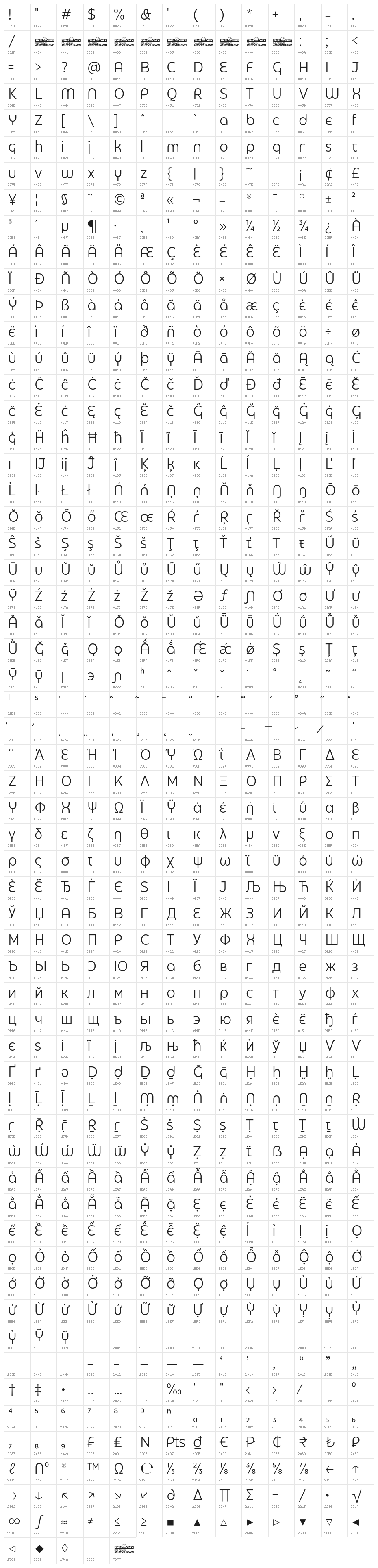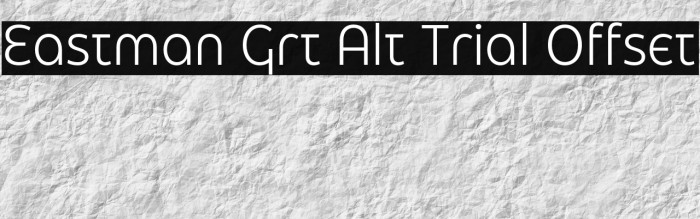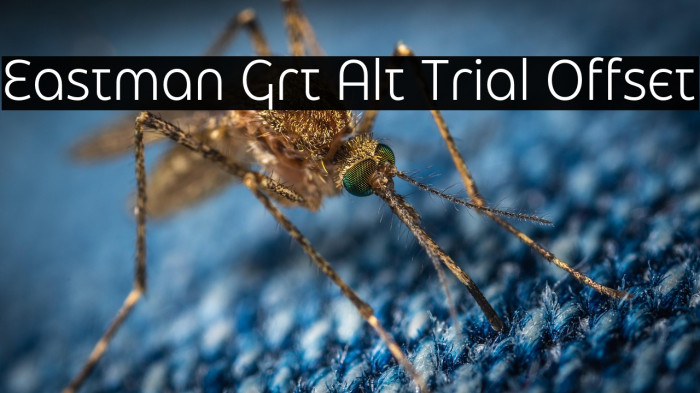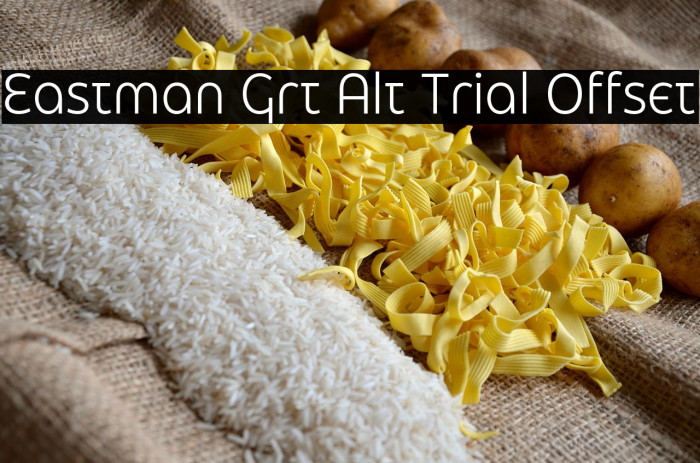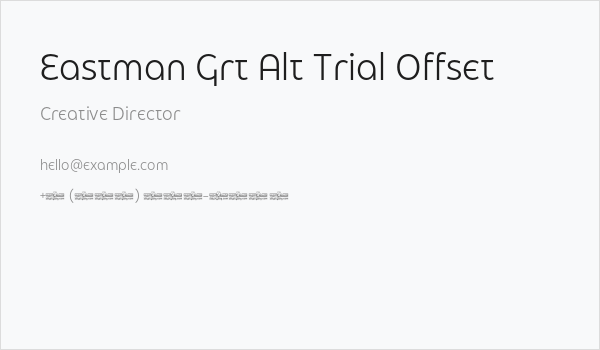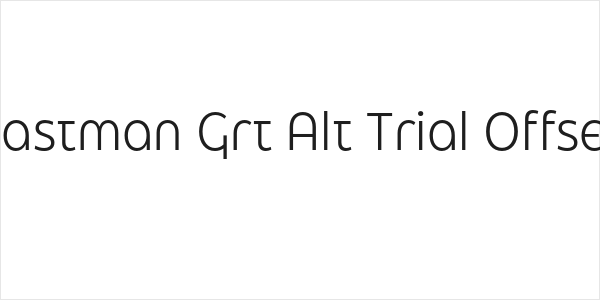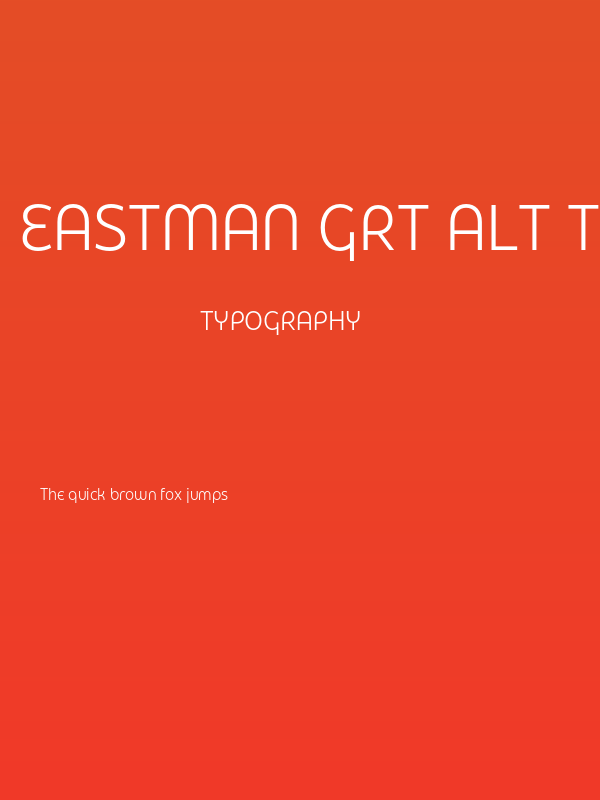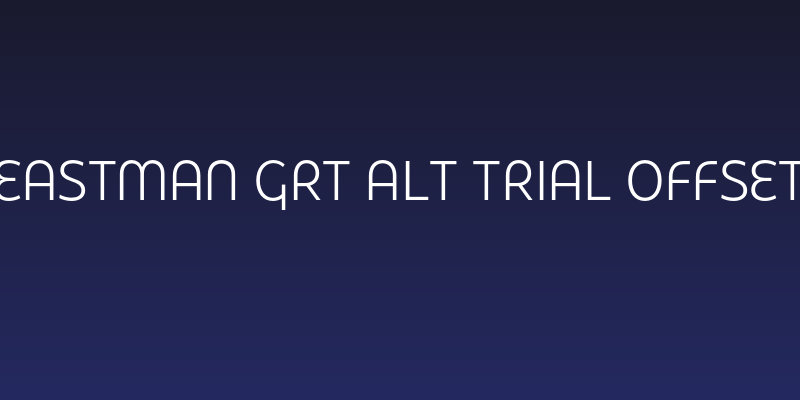
Eastman Grt Alt Trial Offset Font
Eastman Grt Alt Trial Offset Description
This font features a clean and modern sans-serif style with geometric influences. The characters are well-balanced with a consistent stroke width, giving it a uniform appearance. The uppercase letters have a slightly rounded finish, providing a soft yet contemporary look. The lowercase letters maintain a similar aesthetic, with smooth curves and open counters that enhance readability. The numerals are clear and straightforward, matching the overall design. Special characters are included, maintaining the same geometric and minimalist style. This font is versatile and can be used in various design contexts.
| Proposed Projects | Ideal for branding, web design, advertising, and editorial projects where a modern and clean look is desired. |